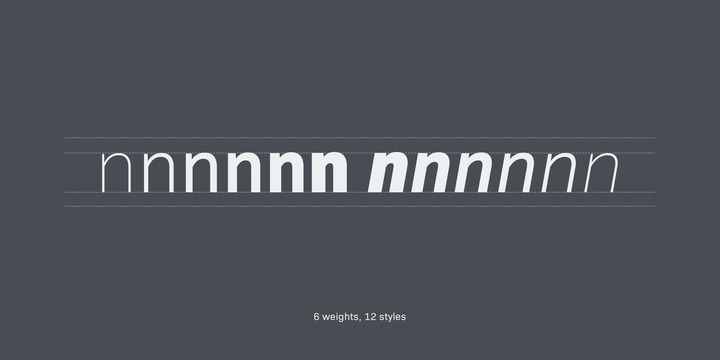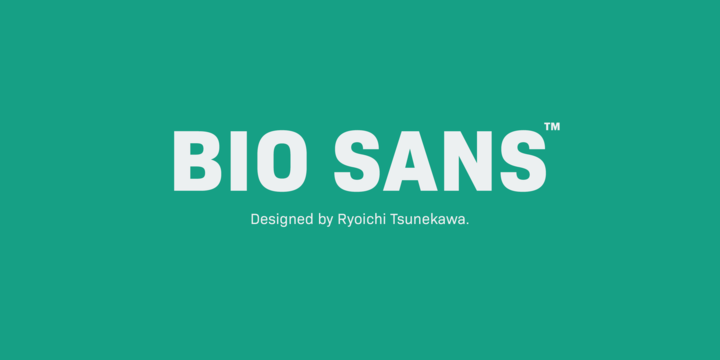
Bio Sans Font Family
Bio Sans is a super neutral sans-serif family for text designed by Ryoichi Tsunekawa and the whole family consists of 6 weights from ExtraLight to ExtraBold and their matching Italics.